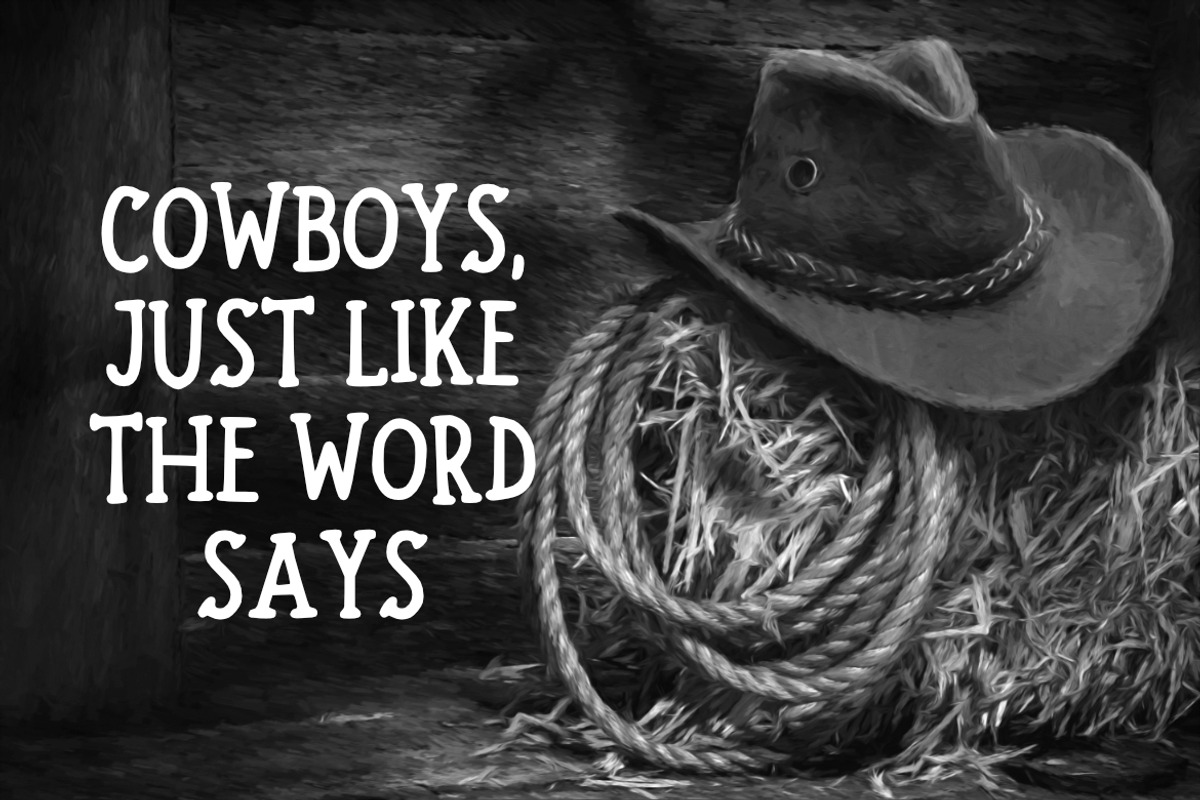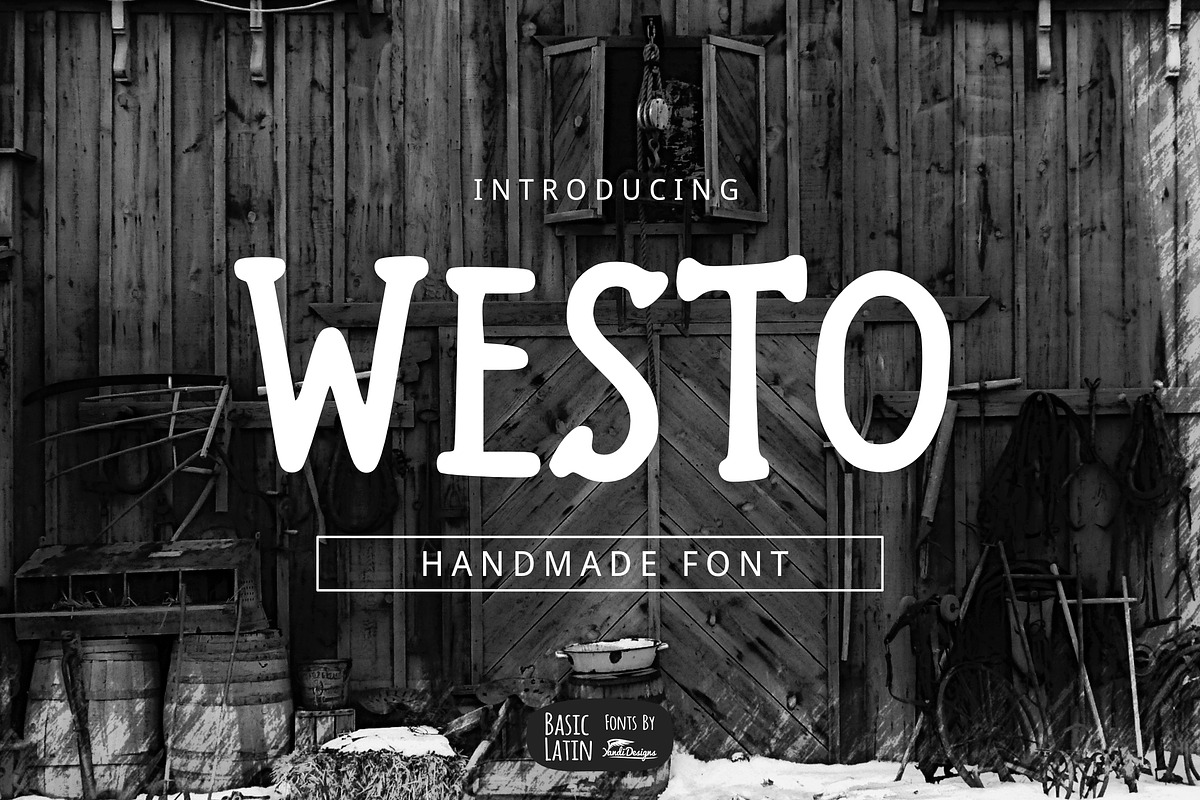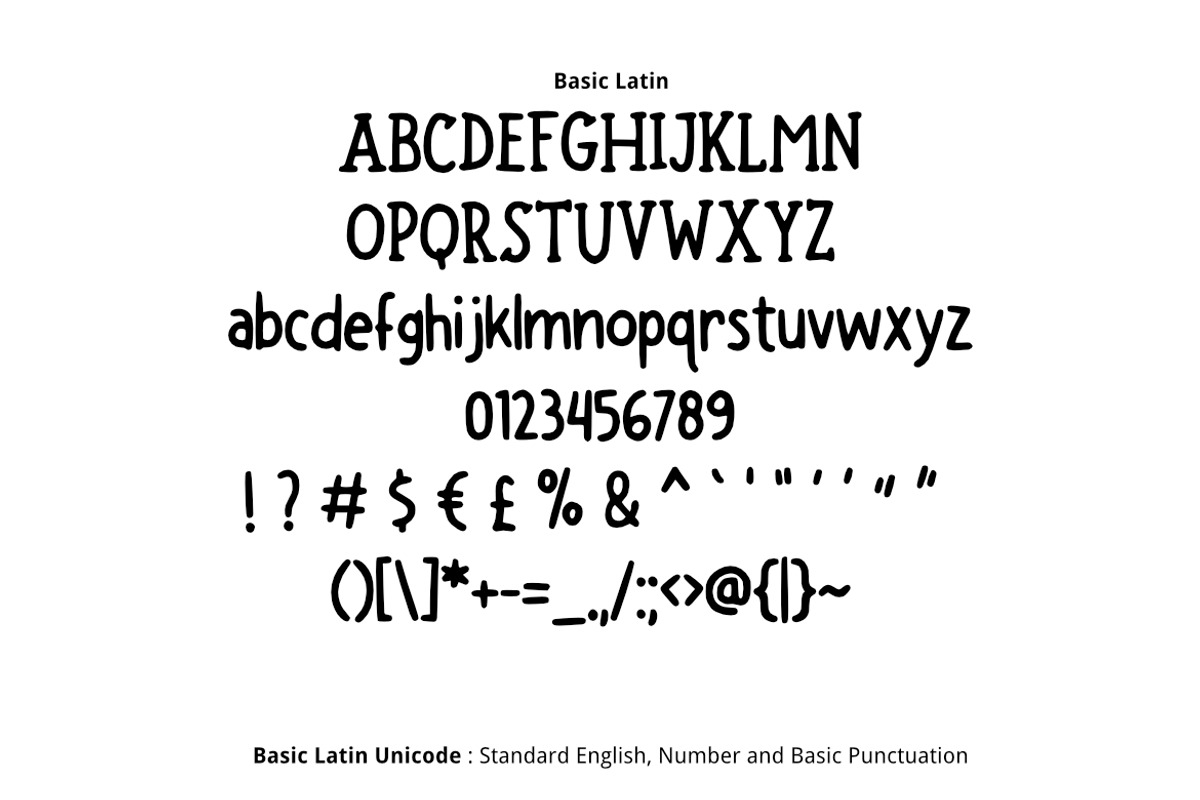
Westo Font
Westo font is simple multipurpose handwritten font , suitable for many project children book, quotes, logo , heading , title etc.
Westo Font by YandiDesigns fits naturally into Branding, posters, packaging, typography.